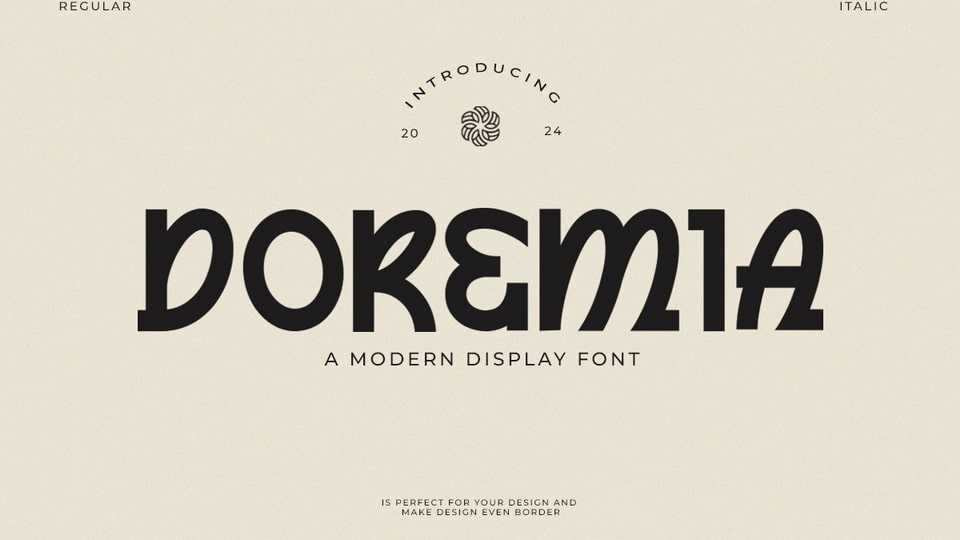
Download Doremia font, a modern display typeface with an experimental style with a unique and playful look. It looks like it was made with a strong gesture, a bit constructive with cursive elements.